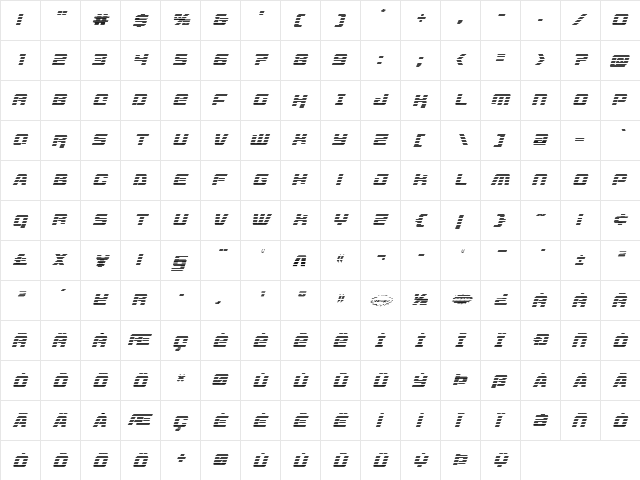
Livewired Gradient Italic Italic
Design Context for Livewired Gradient Italic Typeface
Livewired Gradient Italic is a composed and adaptable typeface that performs quietly and consistently across a wide range of design contexts. The dynamic lean of this cut emphasises speed and emphasis in any layout.
Pro Tip: Use Livewired Gradient Italic for emphasis, pull quotes, and subheadings where its slanted energy can add rhythm to the layout.